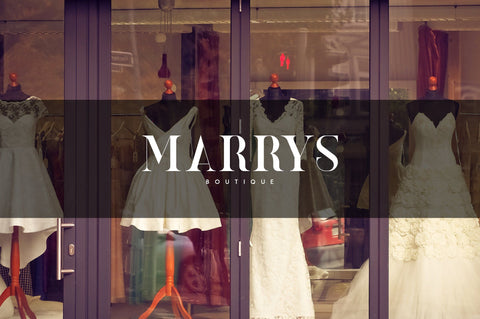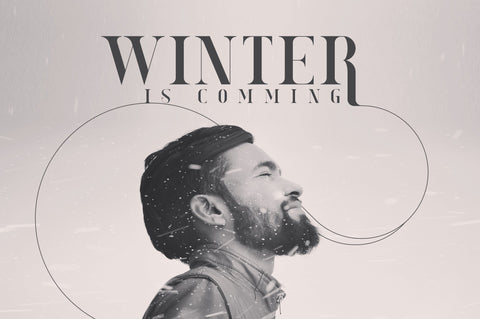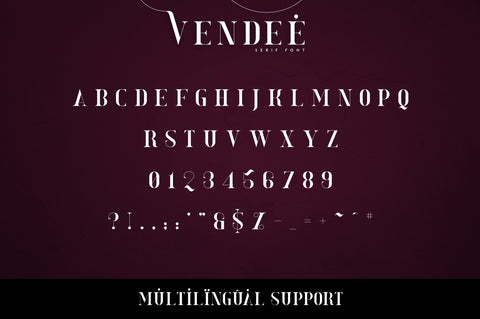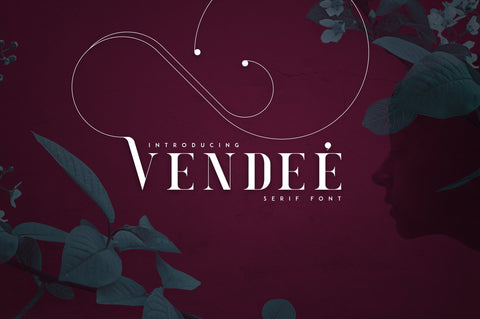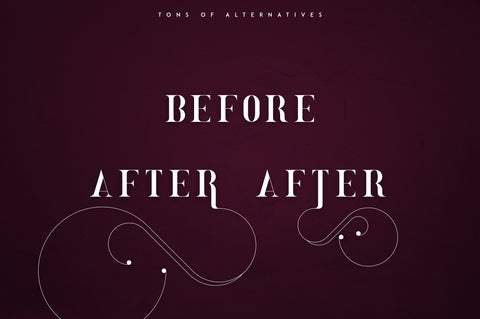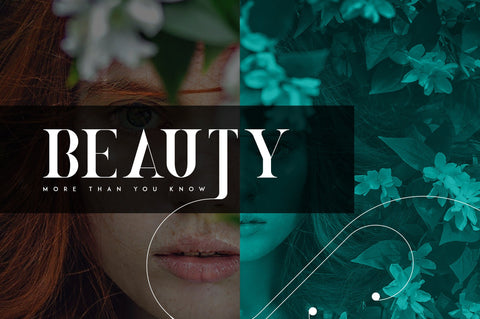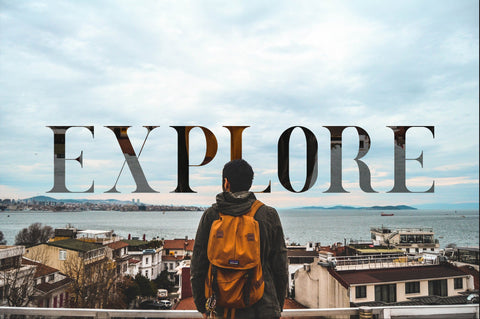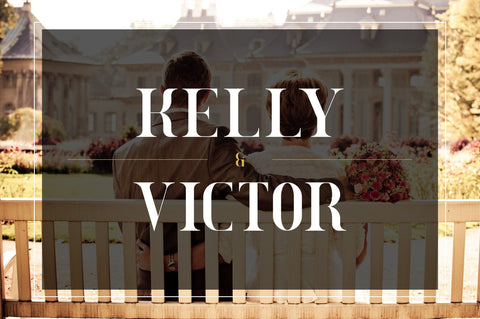
VENDEE - Serif font
Introducing VENDEE serif font
VENDEE is elegant, clean font with multilingual support. It's a very versatile font that works great in large and small sizes.
VENDEE is perfect for branding projects, home-ware designs, product packaging, magazine headers - or simply as a stylish text overlay to any background image.
- Uppercase,lowercase, numeral,punctuation & Symbol
- Clean
- Multilingual support
- Alternative glyphs